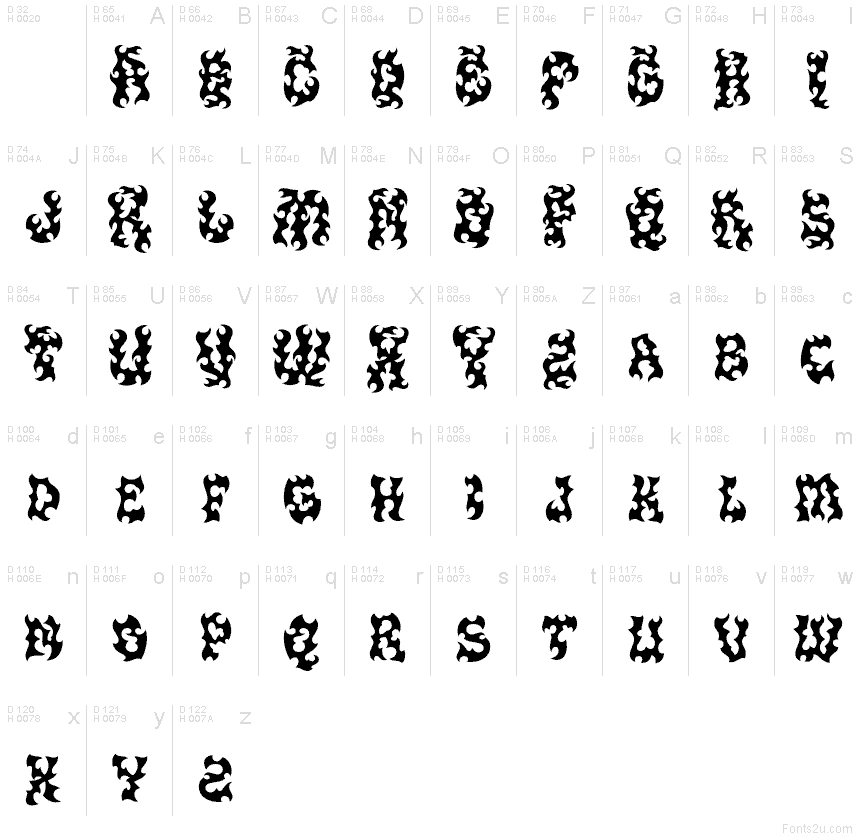
CS Chainsaw Regular Demo
CS Chainsaw font is a display typeface with an aggressively scary and fiery style made by Craft Supply Co. It presents its letters in a grungy, damaged, and unclear manner. This vintage font is unique in its upper case letter design which features slanted and still well-readable letters. This typeface is great to use for creating separate text inscriptions.